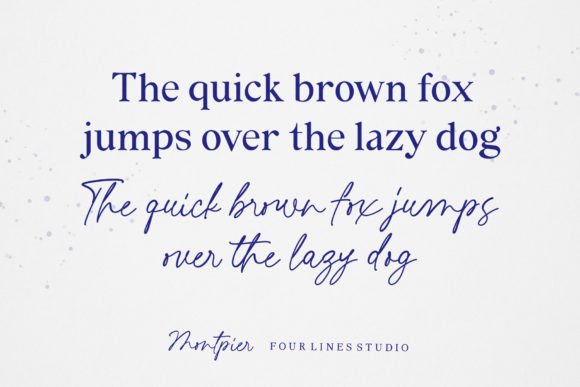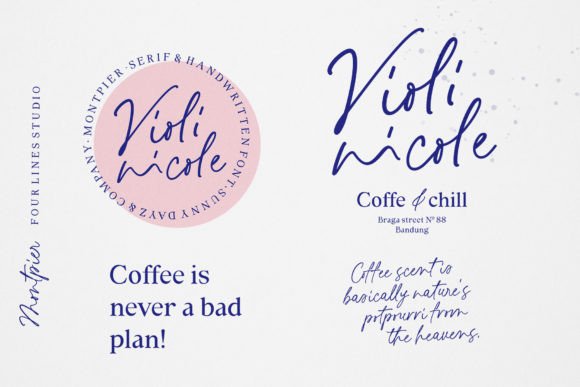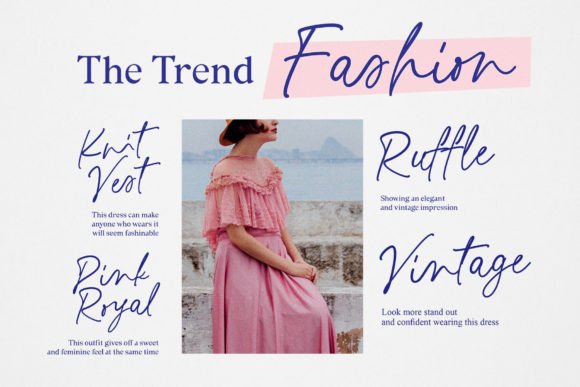
Introduction to Montpier Font
Introducing the Montpier Font Duo.
Montpier presents an exquisite font duo comprising a signature script and a complementary serif typeface, harmoniously crafted for seamless integration into your upcoming design projects This font duo boasts OpenType features, encompassing ligatures, alternates, numerals, punctuation marks, and multilingual support, enhancing its versatility and usability across various design contexts.
Why Choose Montpier Font?